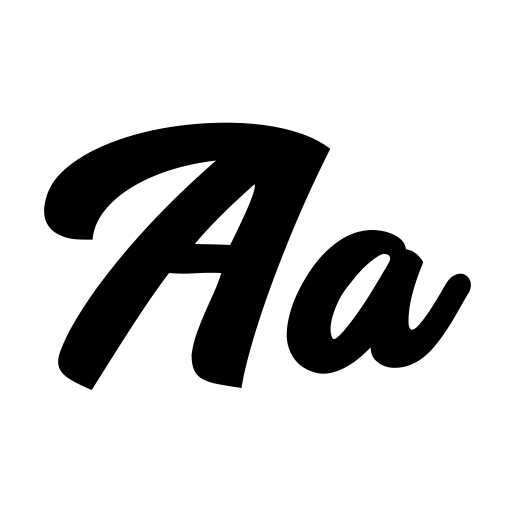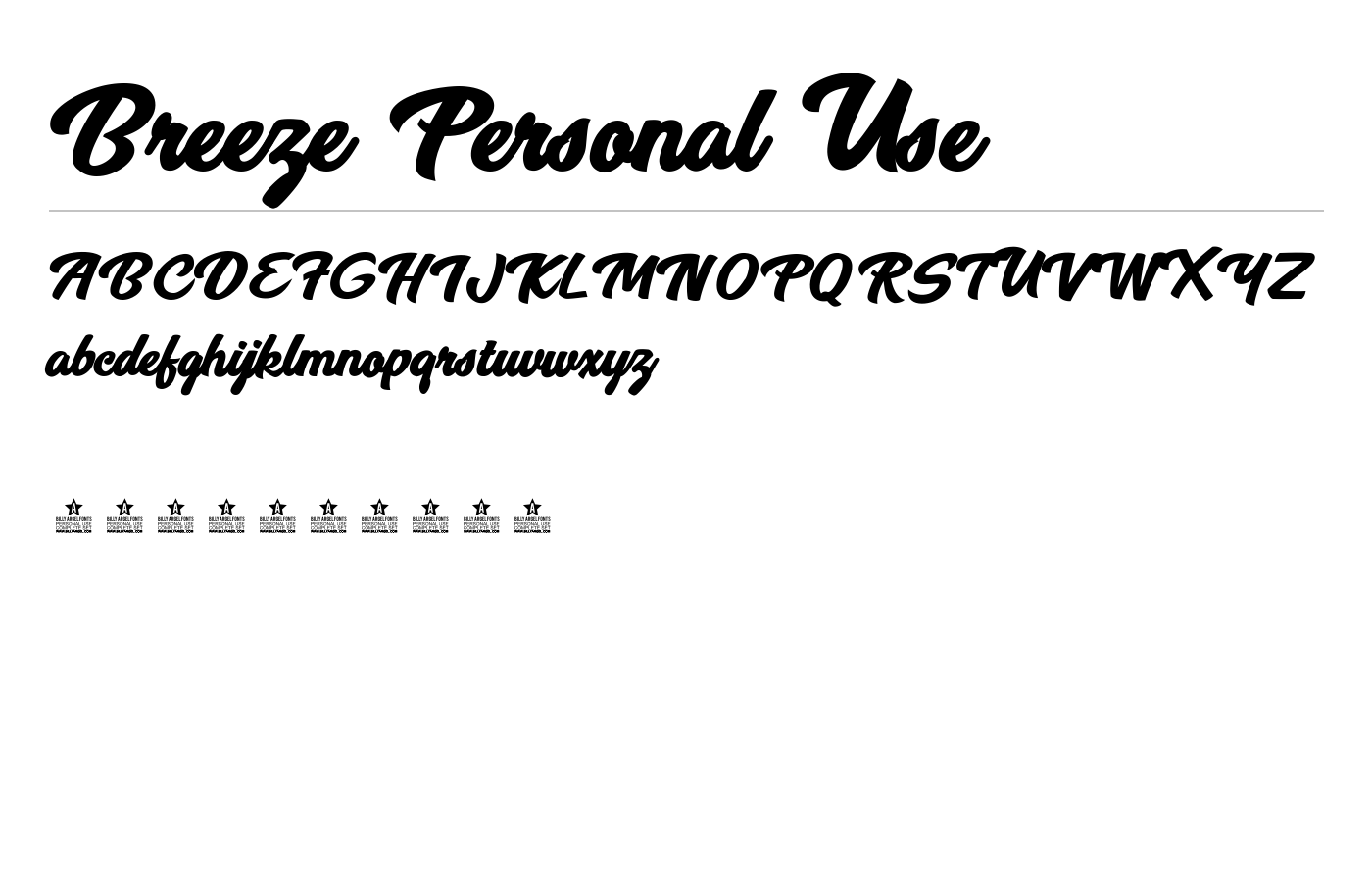
Breeze Personal Use is a bold, cursive script font with smooth, flowing strokes that create an elegant yet approachable feel. Its clean and rounded letterforms make it ideal for branding, invitations, and creative projects where a friendly and charming touch is desired. This font works well in headlines and logos, giving a sense of warmth and personality.
Breeze Personal Use Font
About Breeze Personal Use Font
| Font family | Breeze Personal Use Font |